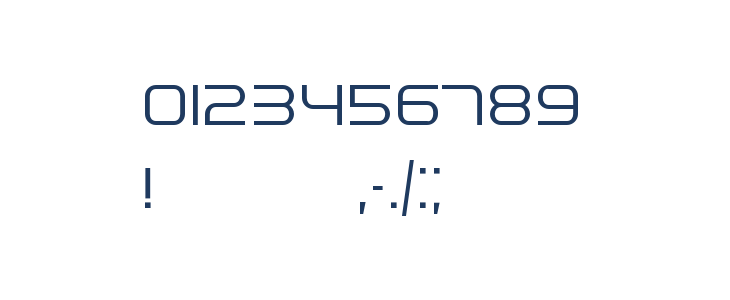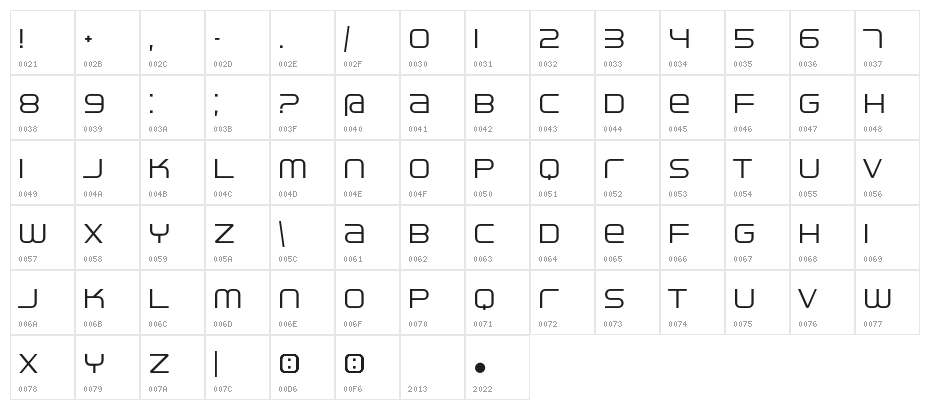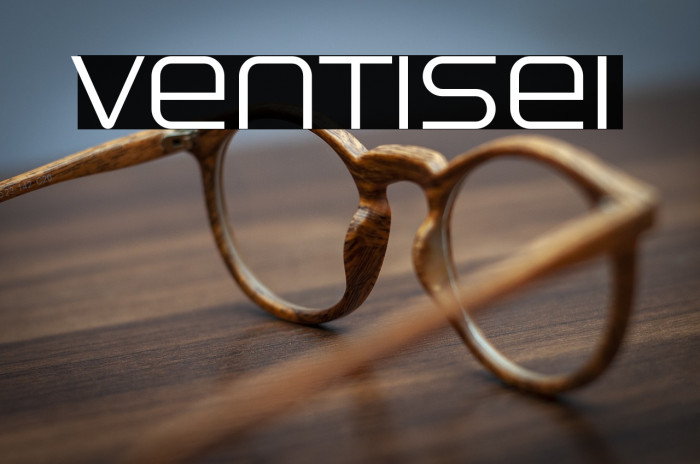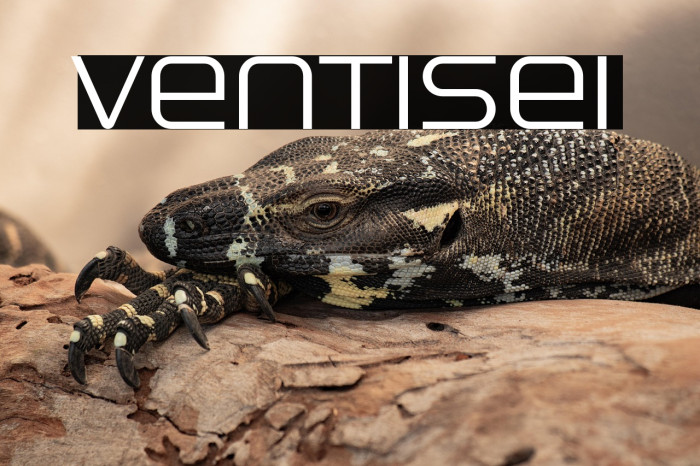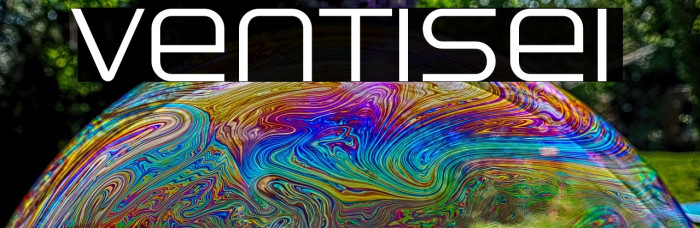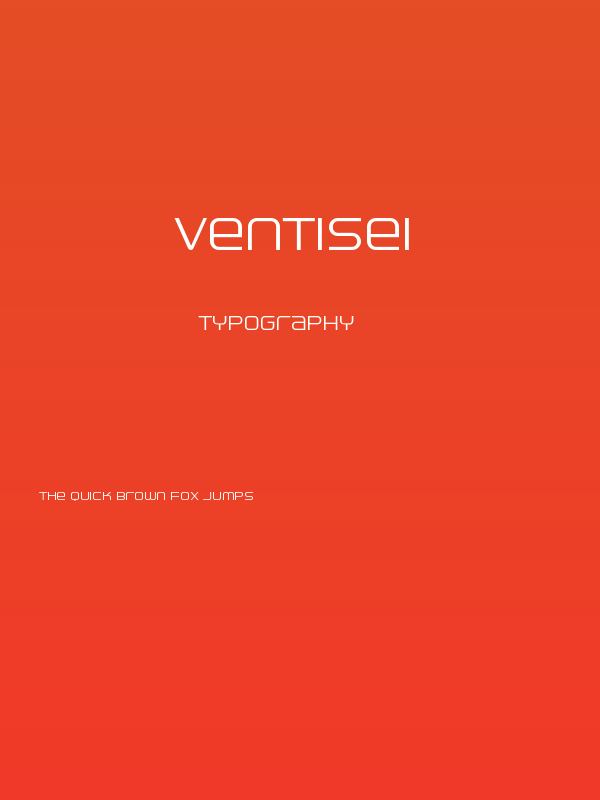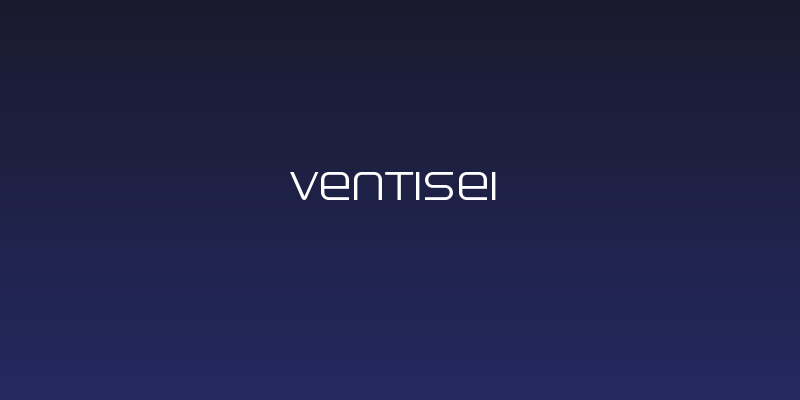
Ventisei Font
Ventisei Description
This font features a modern, geometric design with clean lines and a minimalistic aesthetic. The characters are constructed with consistent stroke widths, giving it a uniform appearance. The rounded edges and open counters contribute to its legibility and contemporary feel. The uppercase and lowercase letters maintain a cohesive style, while the numerals and special characters align seamlessly with the overall design. Its simplicity and clarity make it versatile for various applications.
A modern, geometric font with clean lines and rounded edges from Regular fonts.
- Proposed Projects: Ideal for tech branding, digital interfaces, modern advertising, and minimalist design projects.
- Use Case: Headlines, Logos, Digital interfaces